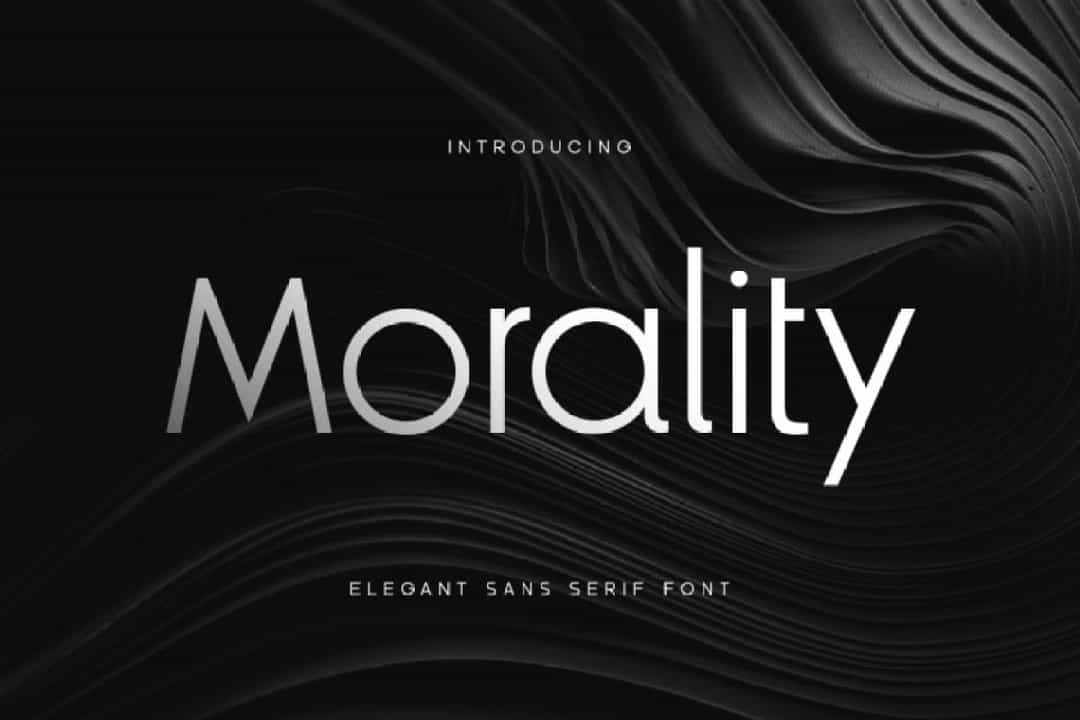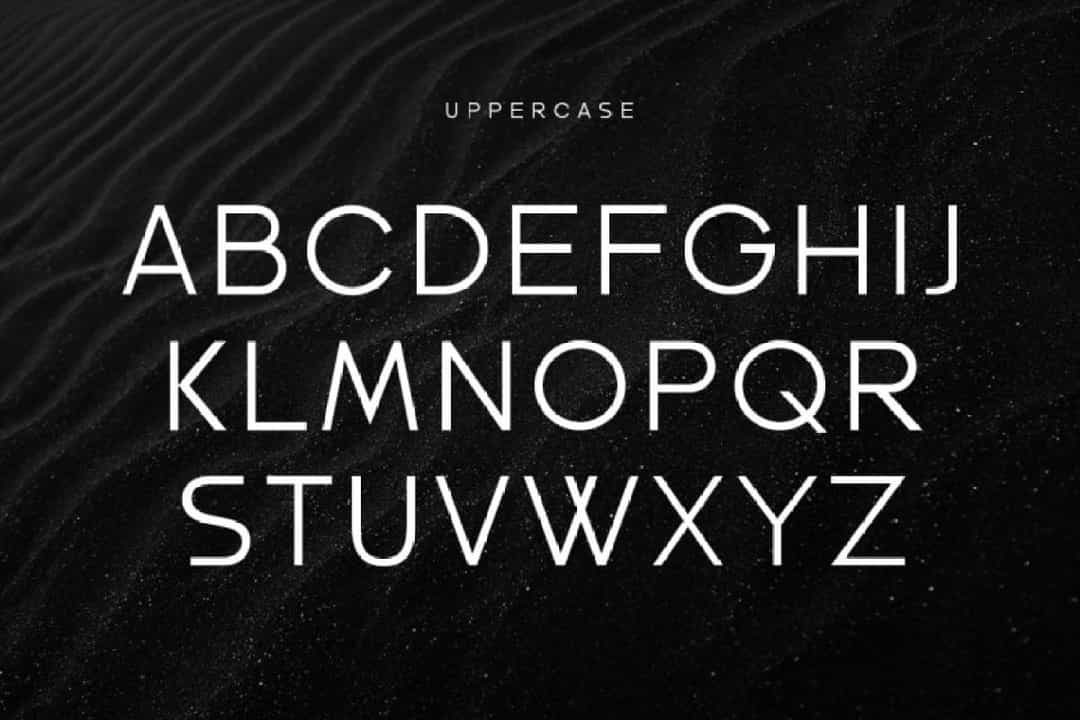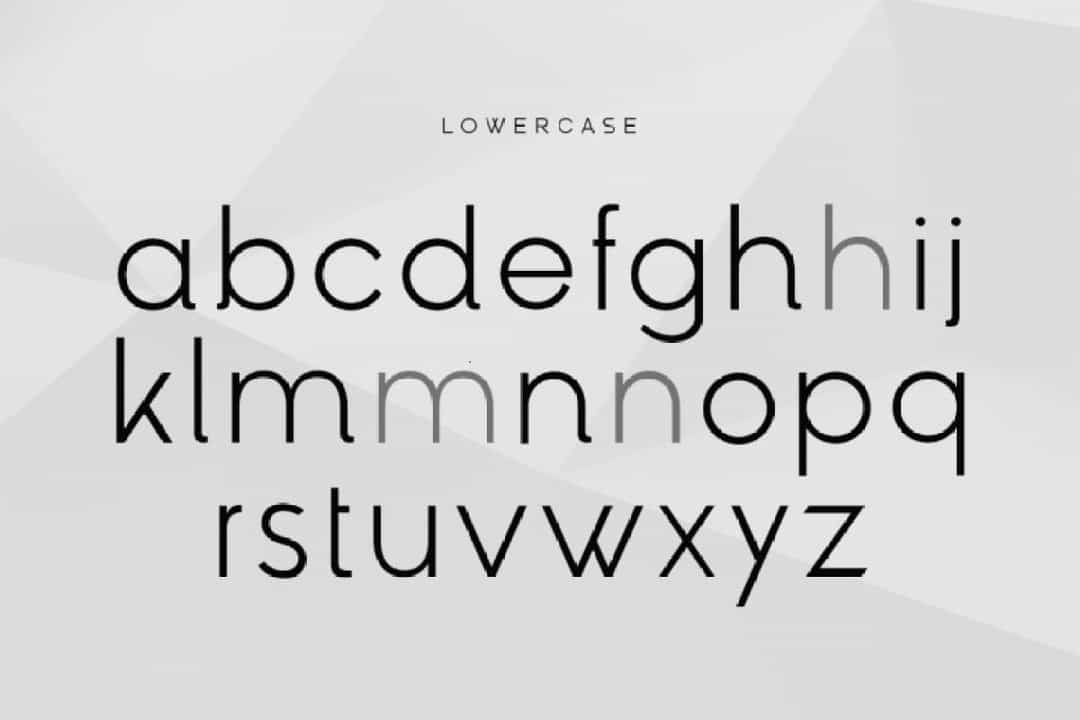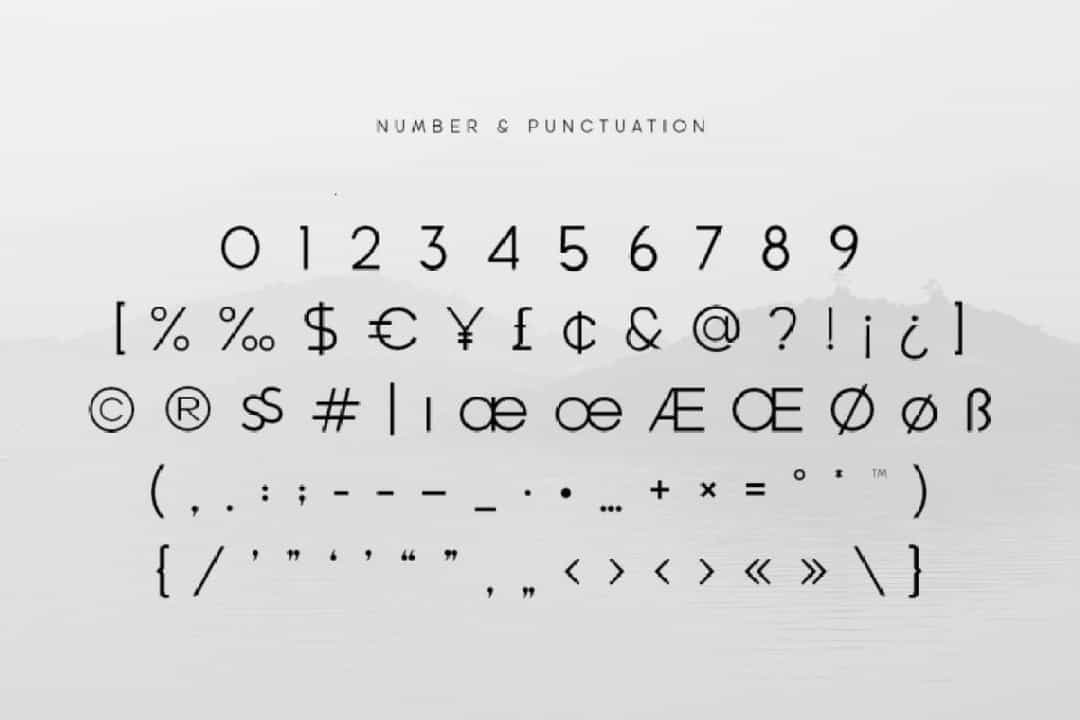
Morality is a font that looks professional and well-polished since it has the sans-serif style. This is due to its sleek curves, and perfect symmetry; it is perfect for implying a feeling of contemporary elegance. Especially suitable for luxury branding, editorial design, and fashionable graphics.